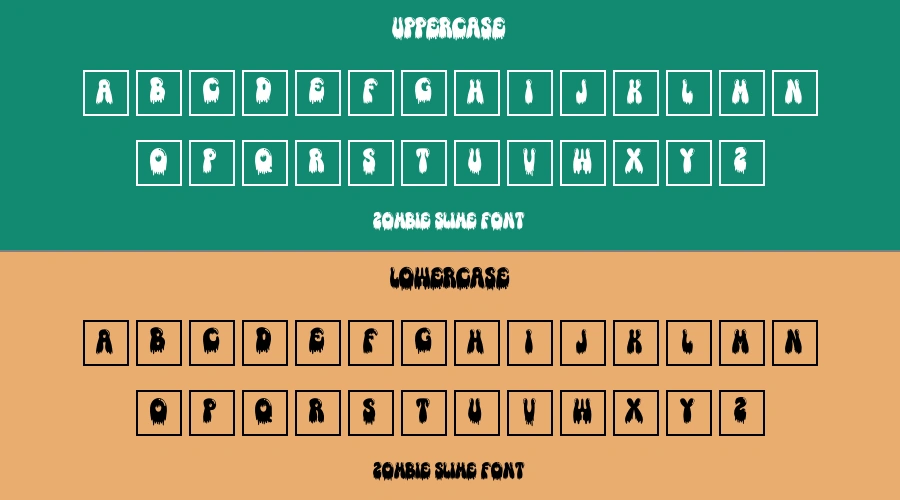
About Zombie Slime Font
Designed with precision, Zombie Slime Font merges structural clarity with aesthetic balance in every character. This versatility makes it particularly effective for merchandise graphics, where clarity and creative excellence directly impact communication quality. Each letterform demonstrates meticulous craftsmanship.
Technical excellence shines through elements like high x-height and proportional figures, enhancing typographic versatility. In sidebars settings, Zombie Slime Font proves its worth through superior emotional response. The thoughtful execution of spur details and market positioning ensures professional results.